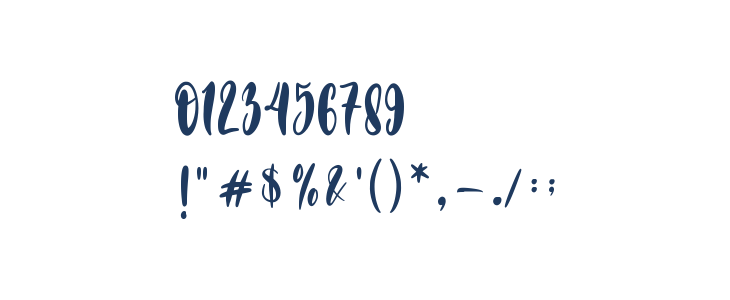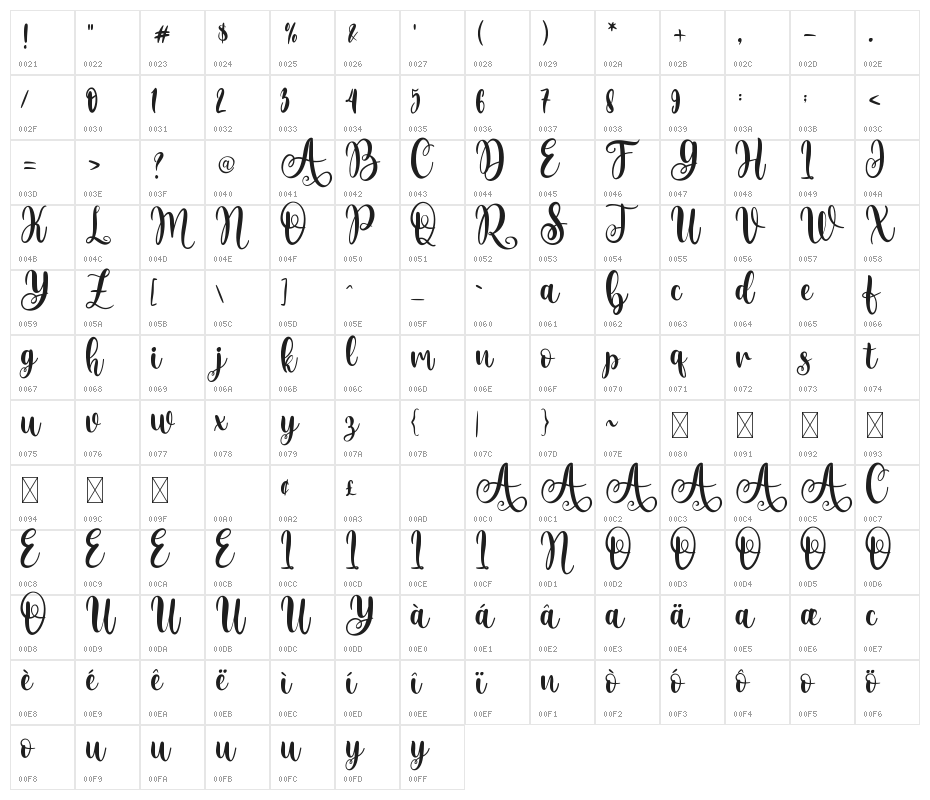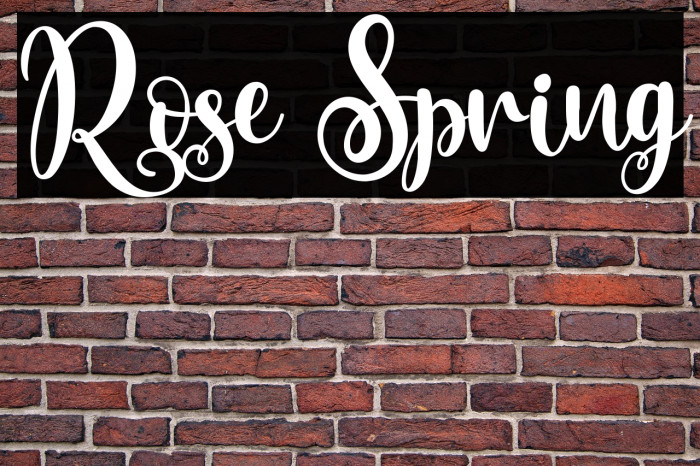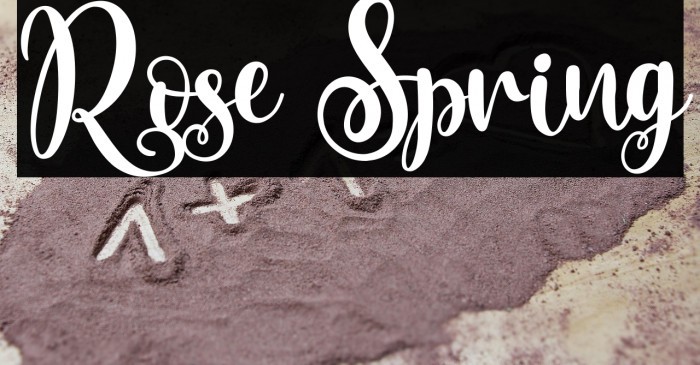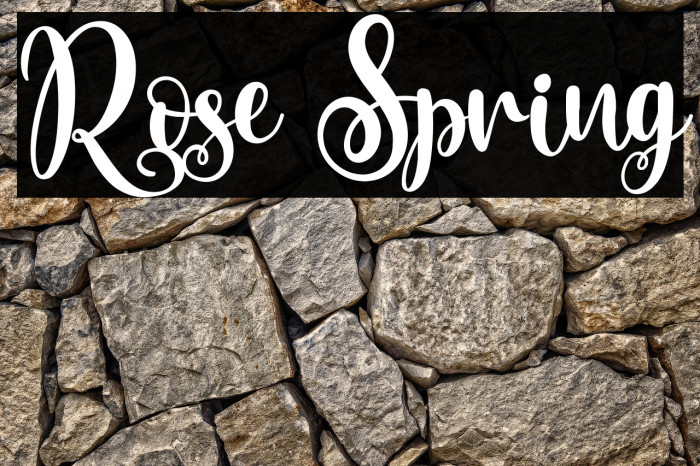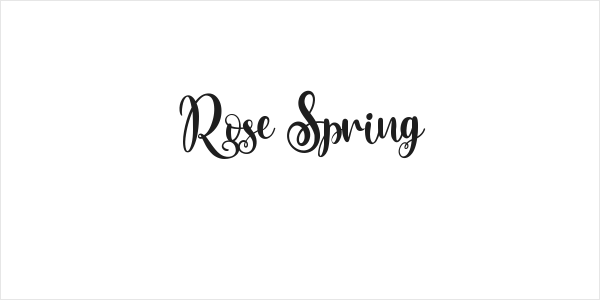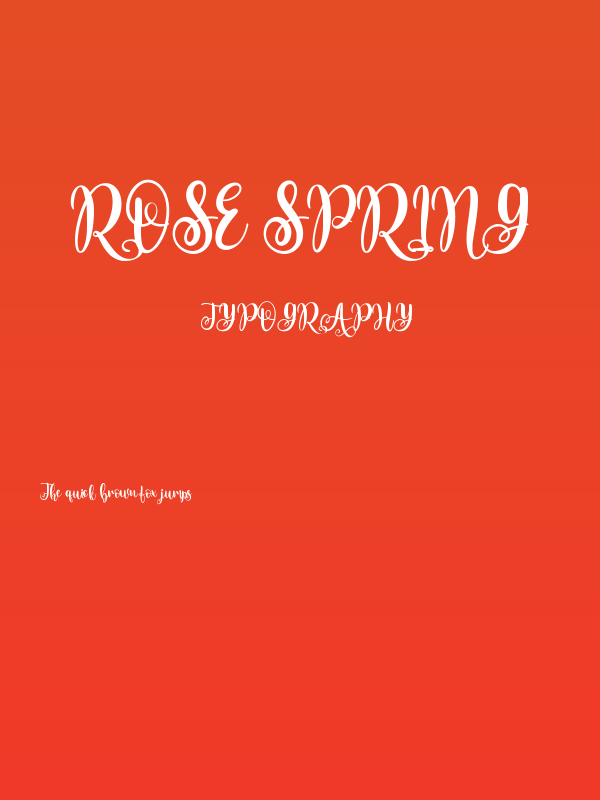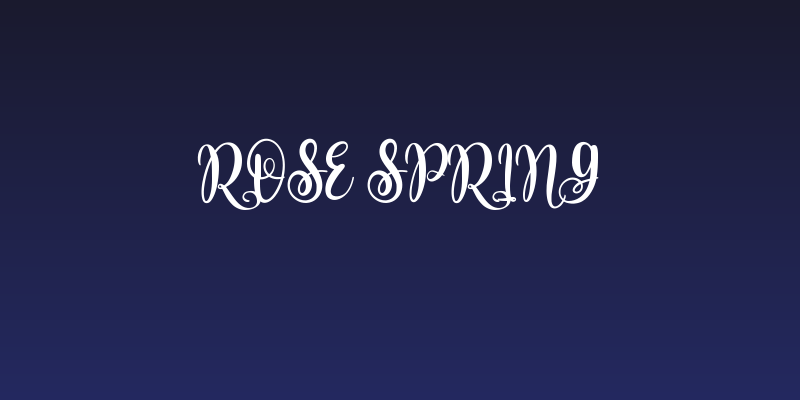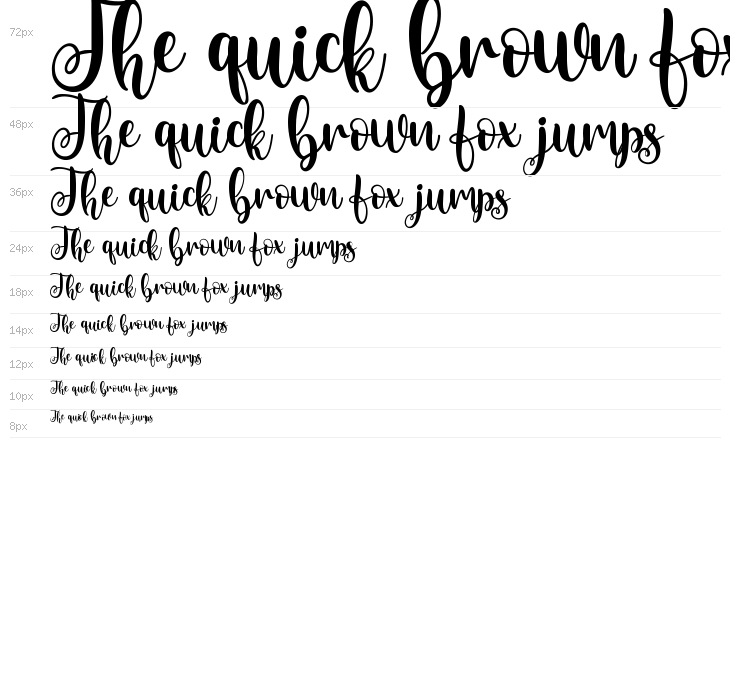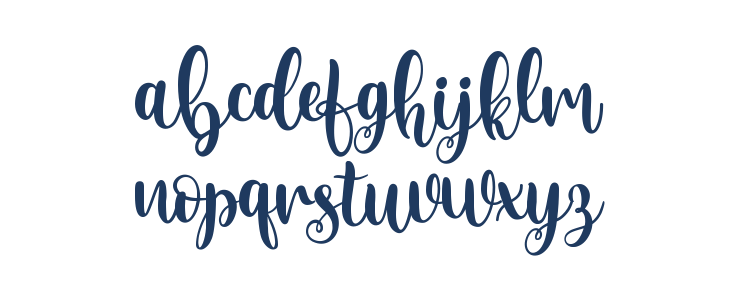
Rose Spring Font
Rose Spring Description
This font features an elegant and flowing script style, characterized by its ornate and decorative letterforms. The uppercase letters are embellished with intricate loops and swirls, giving it a sophisticated and artistic appearance. The lowercase letters maintain a consistent flow, with smooth curves and a slightly playful touch. Numbers and special characters are designed to complement the overall aesthetic, ensuring a cohesive look across all text. The font's bold strokes and high contrast make it stand out, while its decorative elements add a touch of elegance and charm.
| Use Case | Logos, Invitations, Decorative text |
| Proposed Projects | Ideal for wedding invitations, greeting cards, branding, and logo design. |